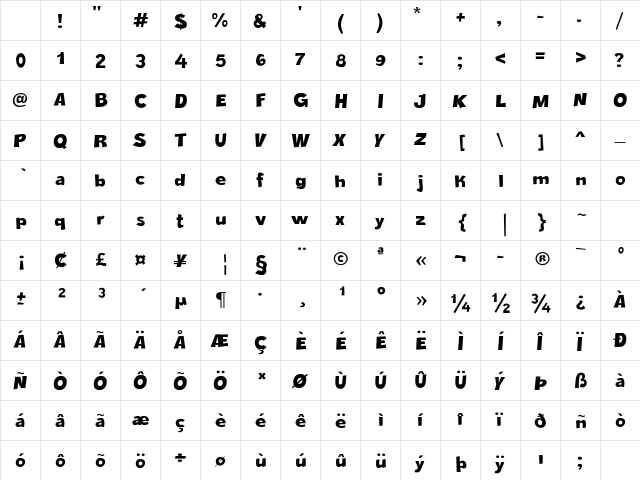
Crazy Krabs is a composed and adaptable typeface that performs quietly and consistently across a wide range of design contexts.
Pro Tip: Use Crazy Krabs in both headline and body roles to test its range before committing to a single application.